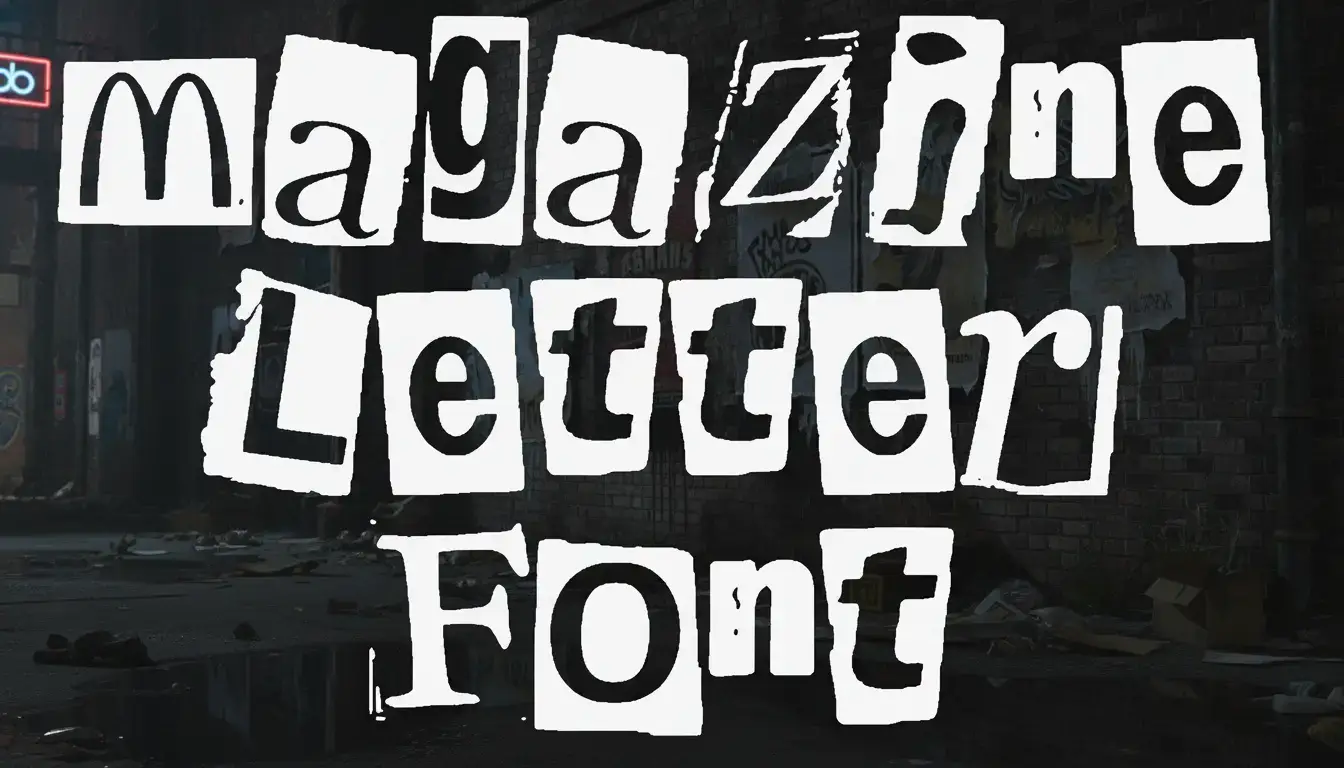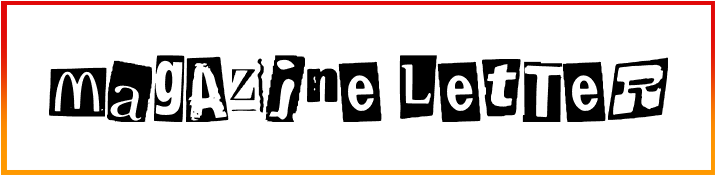
Magazine Letter Font
Magazine Letter is a fancy font. Bold and full of character, it's built to stand out rather than blend in. You can download it for free and test it with your own words in the preview above.
What You Can Type With Magazine Letter
With complete upper and lowercase letters and all ten digits, Magazine Letter is ready for real wording, not just a single headline. Common punctuation such as ! and ? is included as well. It doesn't include accented letters such as é or ñ, which makes it an English-only font.
Where Magazine Letter Works Best
Magazine Letter is a natural fit for posters, logos and eye-catching headlines. Use it for one standout word or headline and let simpler fonts handle the rest.
Does Magazine Letter support accented letters?
No. Magazine Letter has no accented letters such as é, ñ or ü, so it's best for English text.